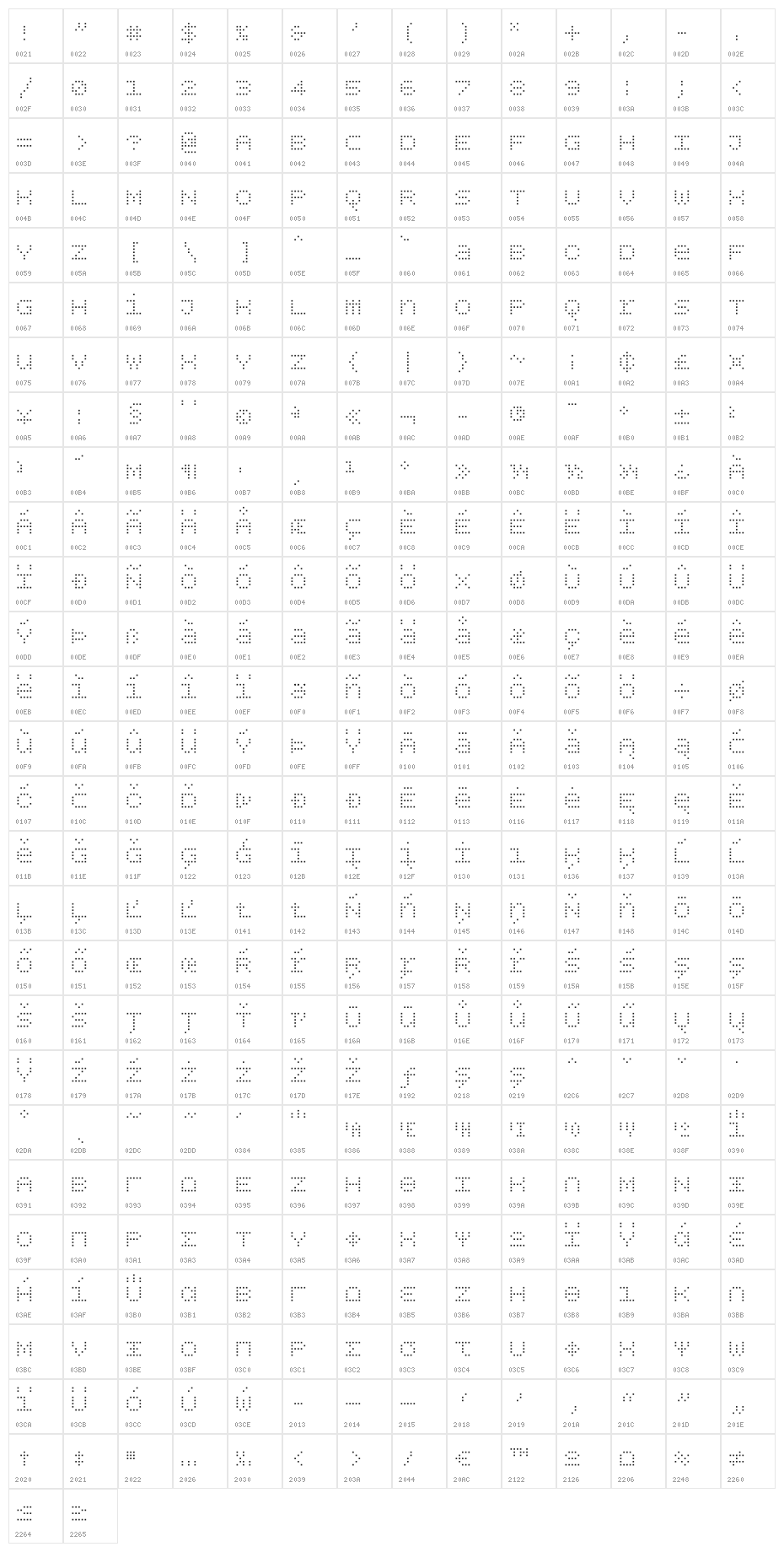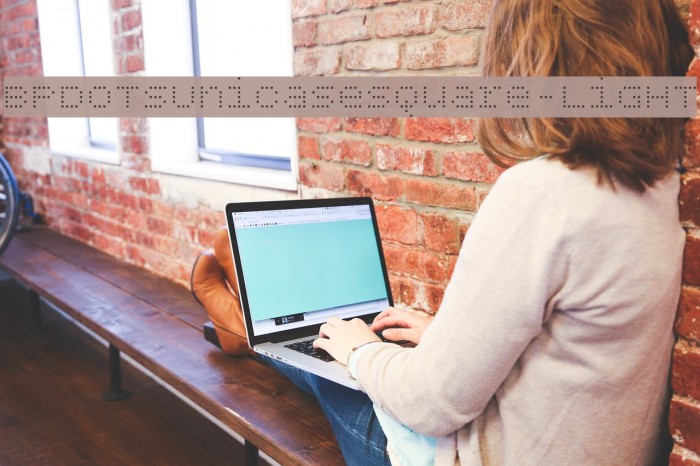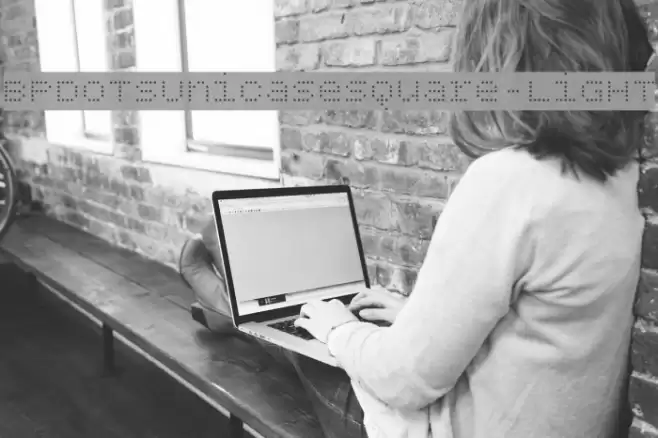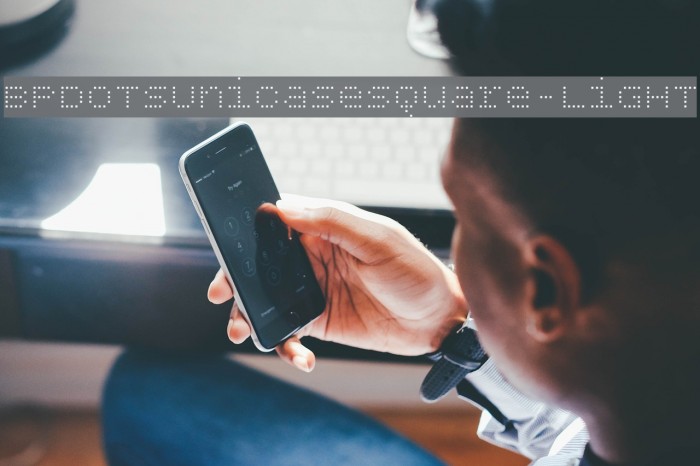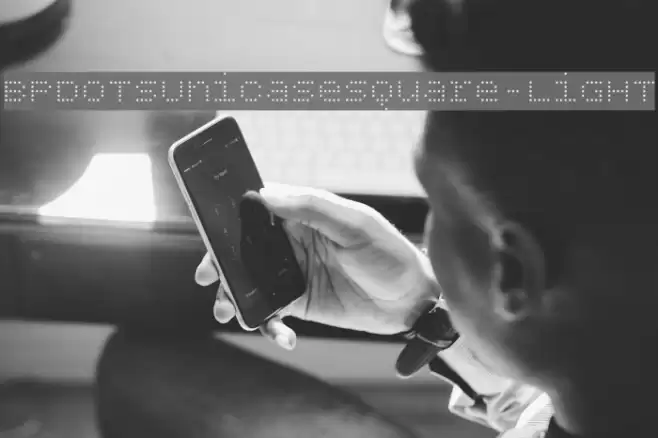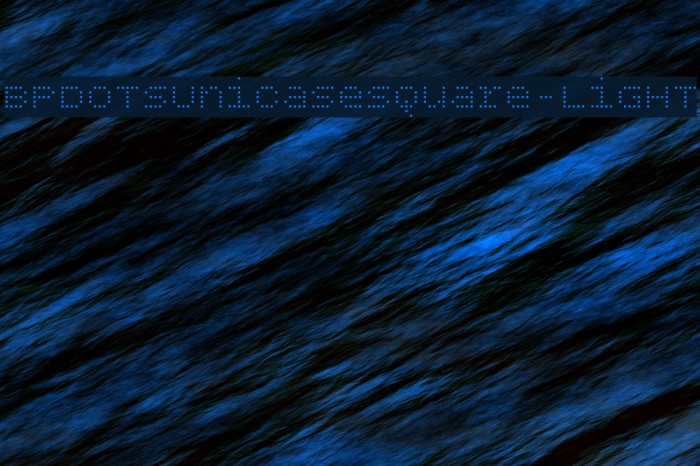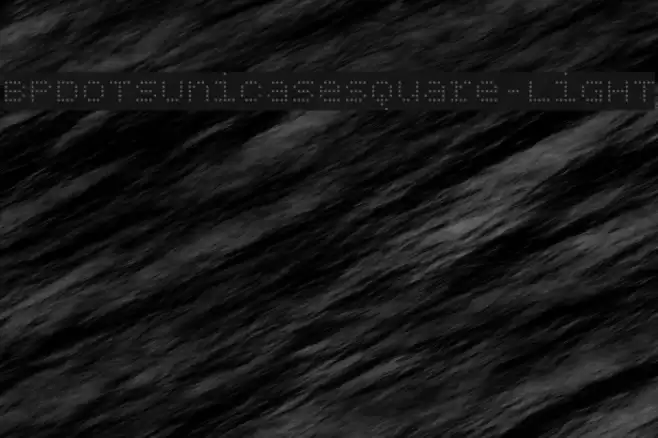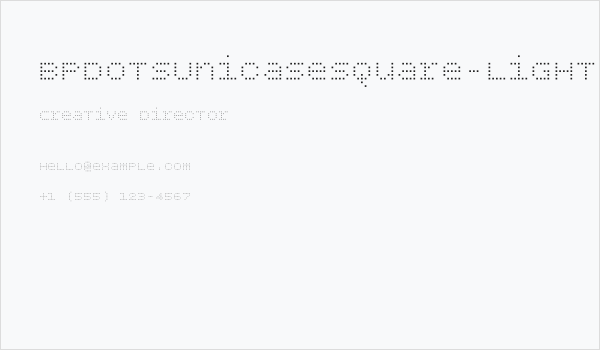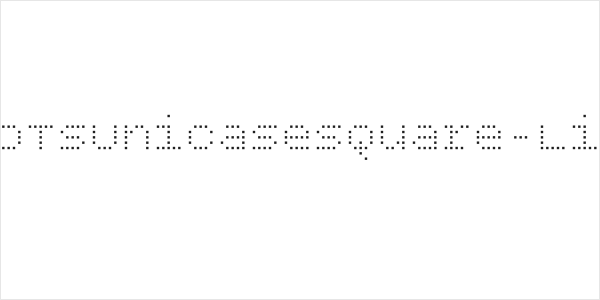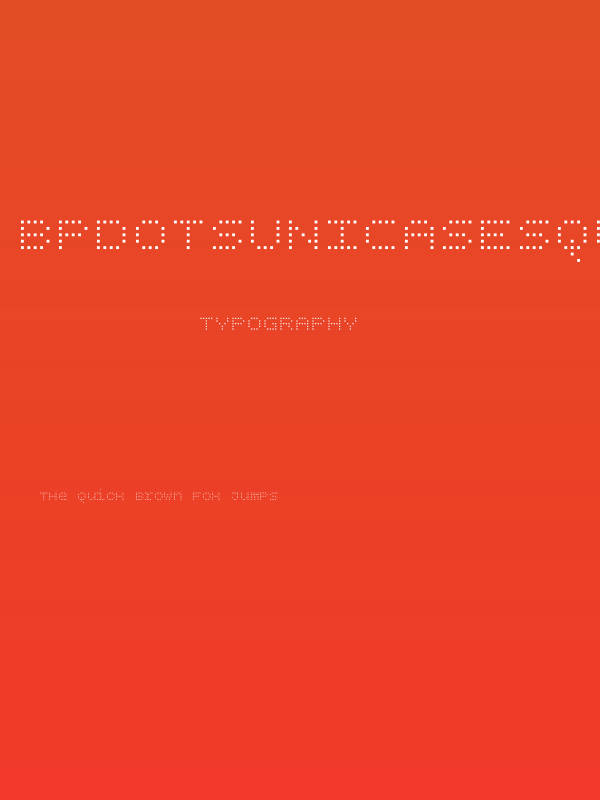
BPdotsUnicaseSquare-Light Font
BPdotsUnicaseSquare-Light Description
This font features a unique dotted design, creating characters from a grid of evenly spaced dots. The style is geometric and modern, with each letter and number formed by connecting these dots in a structured pattern. The font maintains a consistent weight throughout, providing a uniform appearance. The characters are monospaced, offering equal width for each letter and number, which enhances readability and alignment. The overall aesthetic is minimalist and tech-inspired, making it suitable for digital and futuristic themes. The spacing between characters is normal, ensuring clarity and legibility.
Use CaseLogos, Digital displays, Educational materials
Proposed ProjectsIdeal for digital displays, tech branding, futuristic designs, and educational materials.